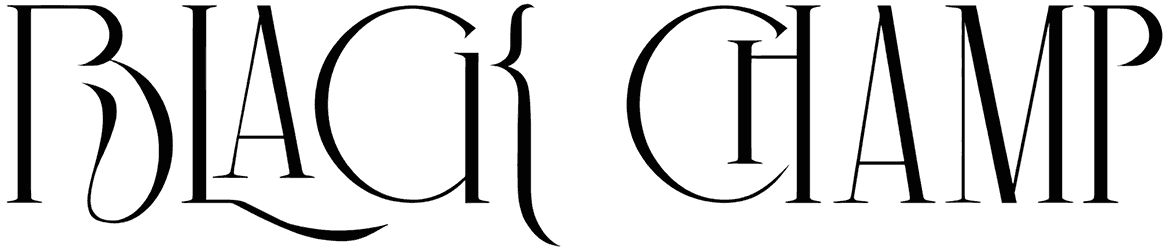
Cammron Serif Font
If the appearance of your text layout matters, this serif font can be helpful for you. Cammron Serif is a set of 3 styles and works flawlessly for posters, magazines, books, etc. Note this one doesn’t contain punctuation and lowercase letters. If you found this freebie practical, don’t forget to visit our limitless inventory.